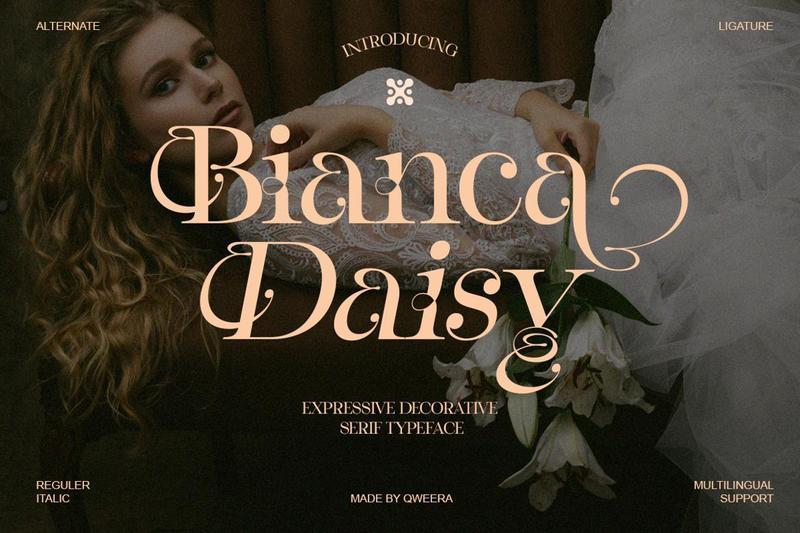
**Bianca Daisy** is a romantic decorative serif typeface designed to bring feminine elegance, floral charm, and luxury sophistication into modern creative projects. Featuring expressive curves, stylish alternates, and graceful ligatures, this font creates a beautiful typographic presence with premium personality.
Perfect for wedding invitations, luxury branding, beauty packaging, boutique logos, floral labels, perfume packaging, fashion editorials, premium stationery, and elegant marketing materials.
Bianca Daisy blends decorative serif beauty with modern readability, making it an excellent choice for designers seeking a romantic, stylish, and luxurious font for high-end visual identities.
**Features**
– Uppercase & lowercase
– Alternates & ligatures
– Multilingual support
– Professional kerning
– Regular & Italic
**Perfect For**
Wedding invitations, luxury branding, beauty packaging, boutique logos, floral labels, perfume packaging, fashion editorials